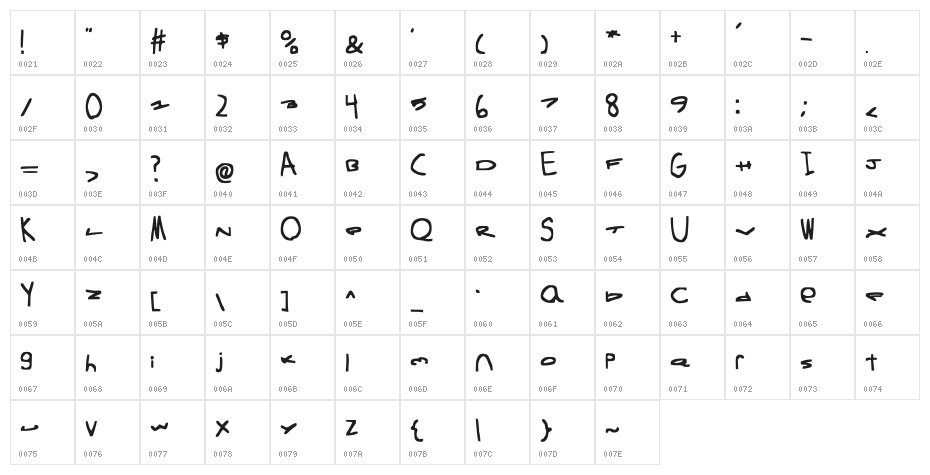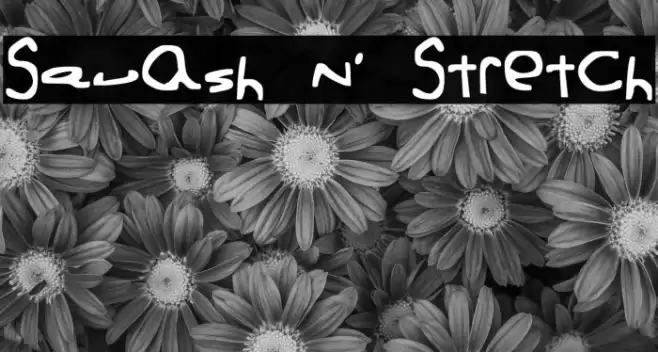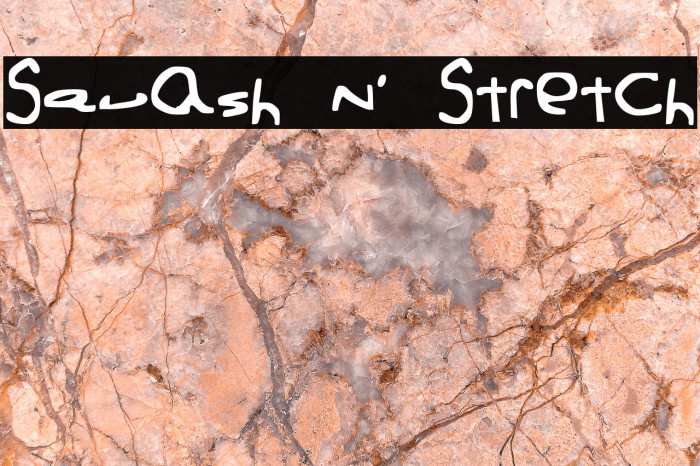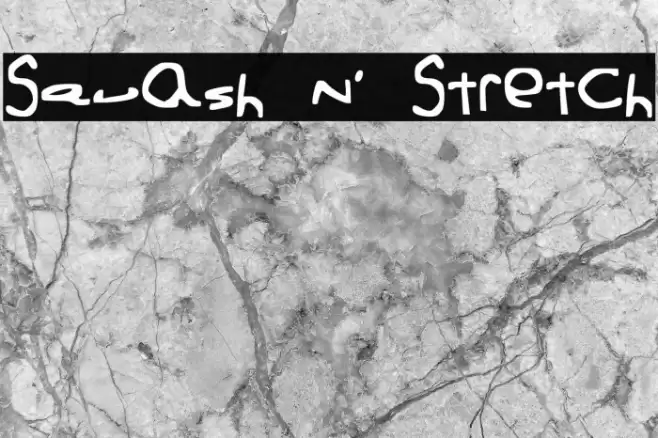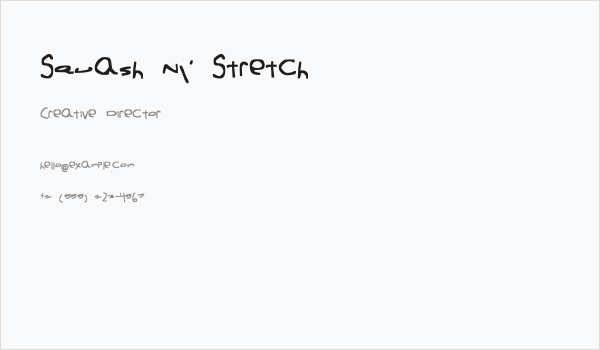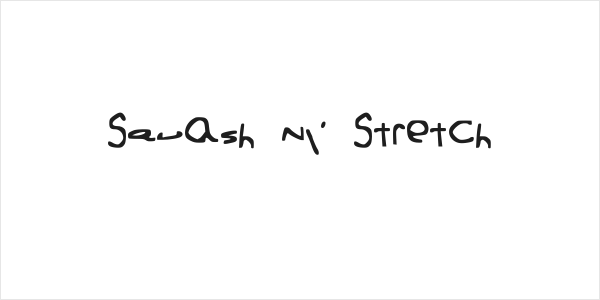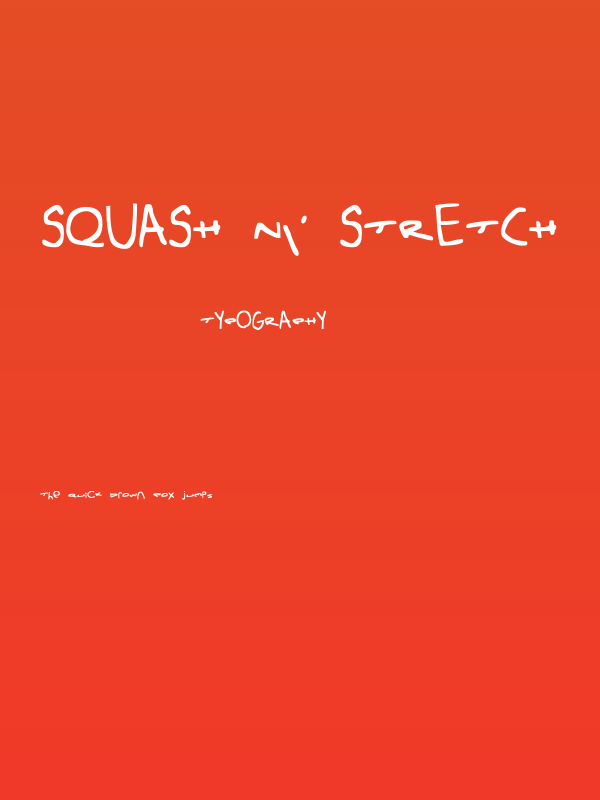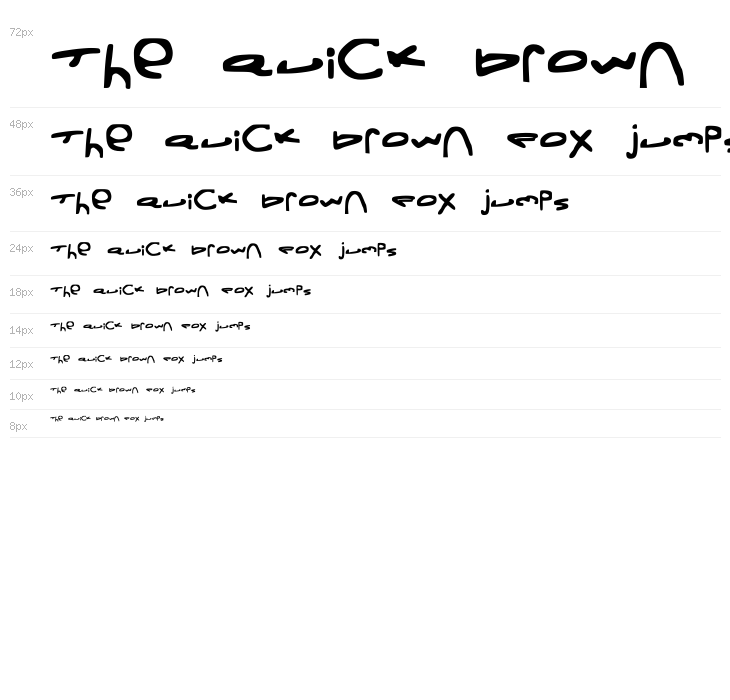
Squash N' Stretch Font
Squash N' Stretch Description
This playful and dynamic font features a hand-drawn, cartoonish style with exaggerated curves and irregular shapes. The characters have a whimsical, bouncy appearance, giving them a sense of movement and energy. The uppercase and lowercase letters maintain a consistent style, with rounded edges and varying stroke widths that add to the font's lively character. Numbers and special characters are equally expressive, fitting seamlessly into the overall design. The font's informal and fun nature makes it ideal for creative projects that require a touch of humor and personality.